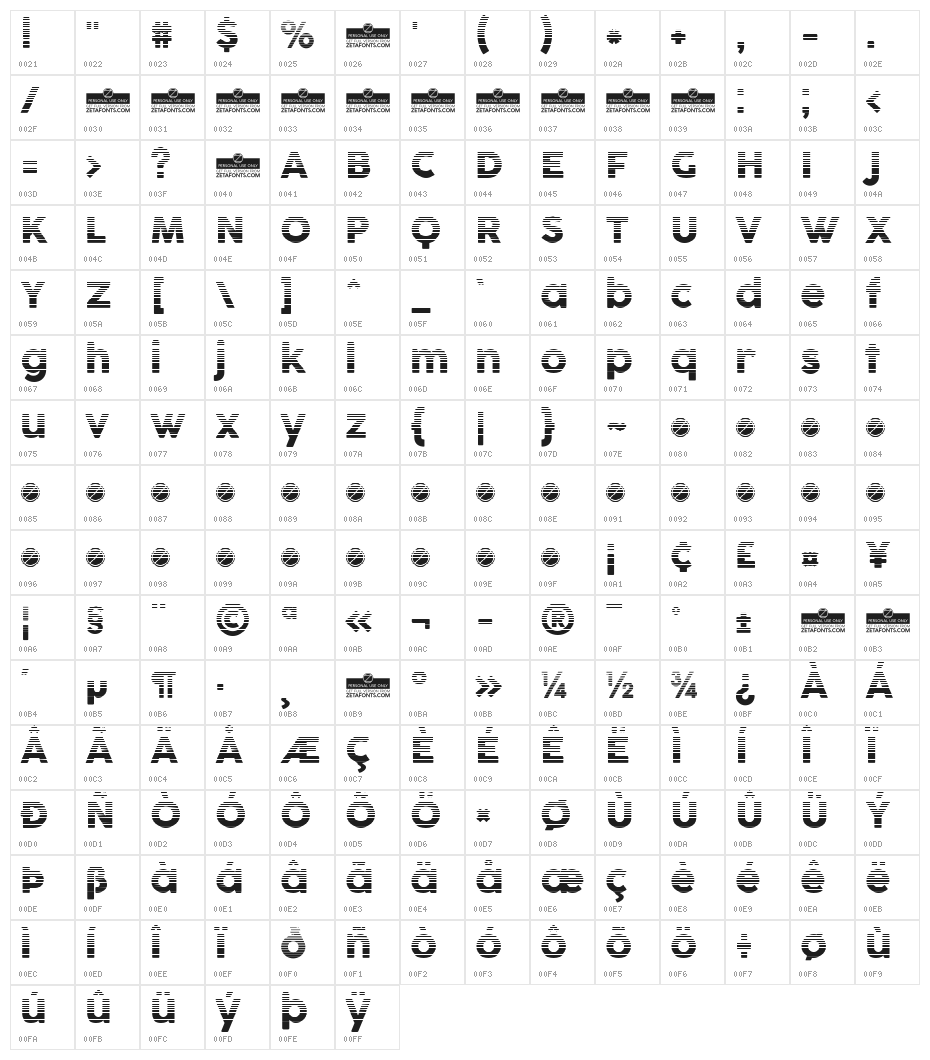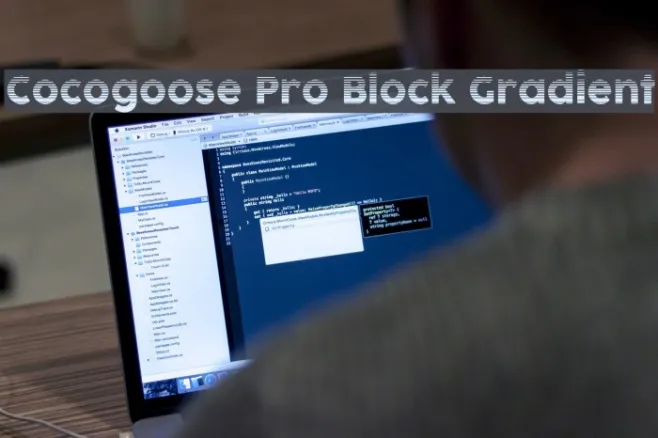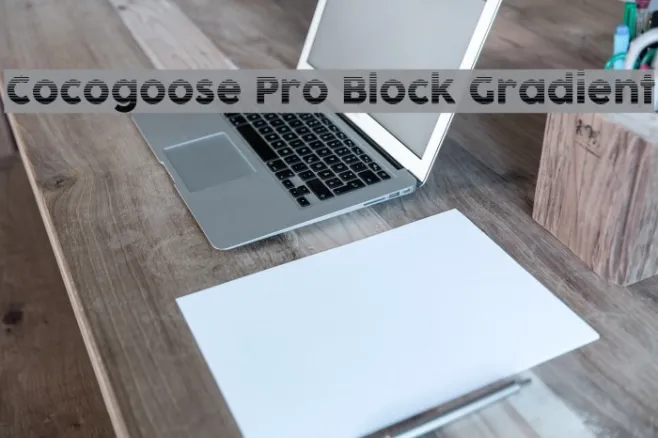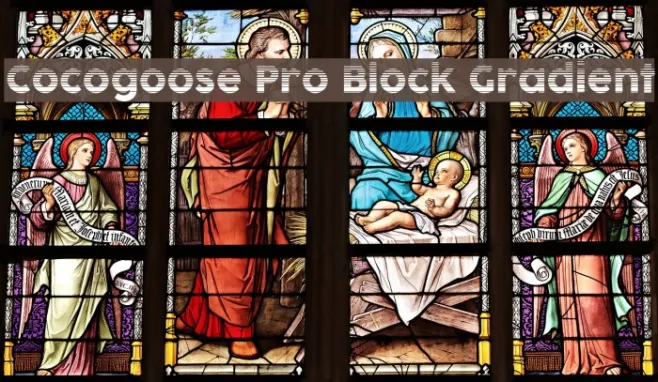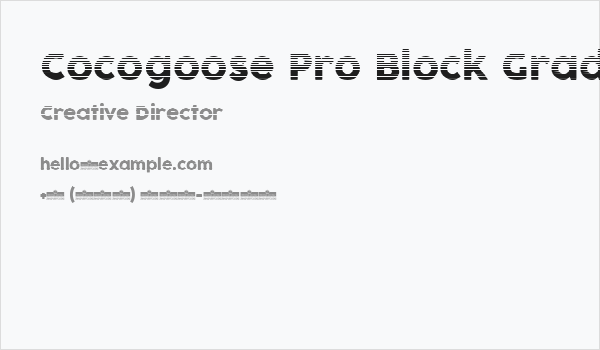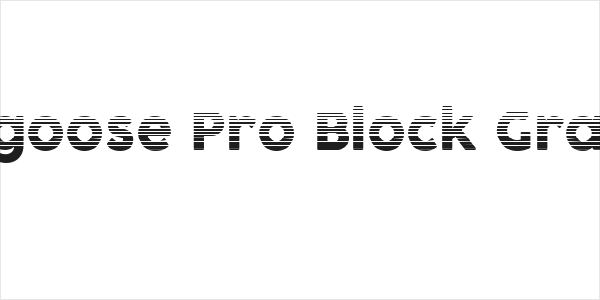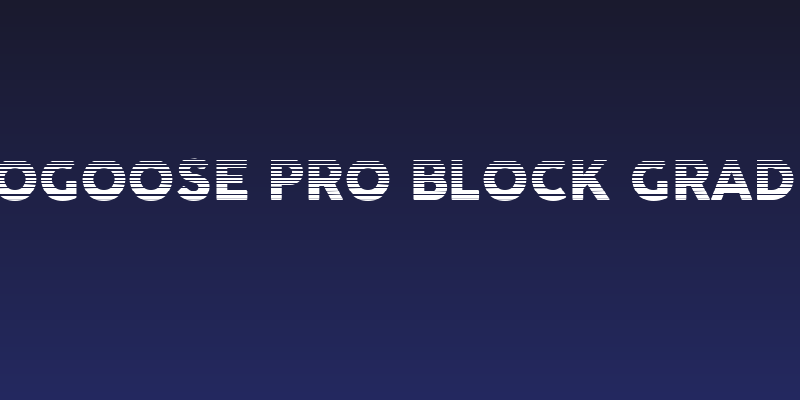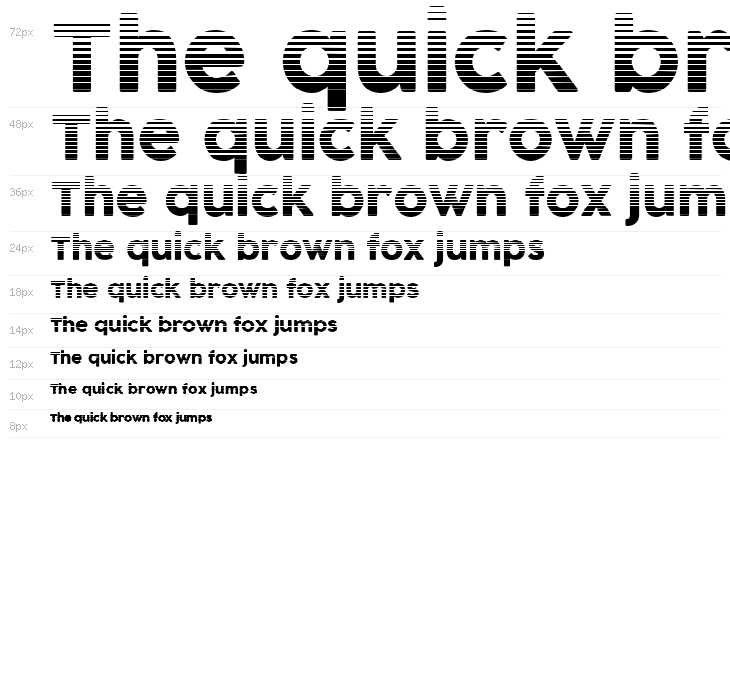
Cocogoose Pro Block Gradient Font
Cocogoose Pro Block Gradient Description
This font features a bold, geometric design with a distinctive striped gradient effect that gives it a modern and dynamic appearance. The uppercase and lowercase letters maintain a consistent width, creating a uniform look across the text. The characters are well-defined with clean lines and sharp angles, contributing to a strong visual impact. The font includes a full set of uppercase and lowercase letters, numbers, and a variety of special characters. The striped pattern adds a unique texture, making it suitable for eye-catching designs. Its boldness and distinctive style make it ideal for headlines, posters, and branding projects where a contemporary and striking look is desired.
| Proposed Projects | Ideal for use in branding, posters, headlines, and any project requiring a bold, modern aesthetic. |